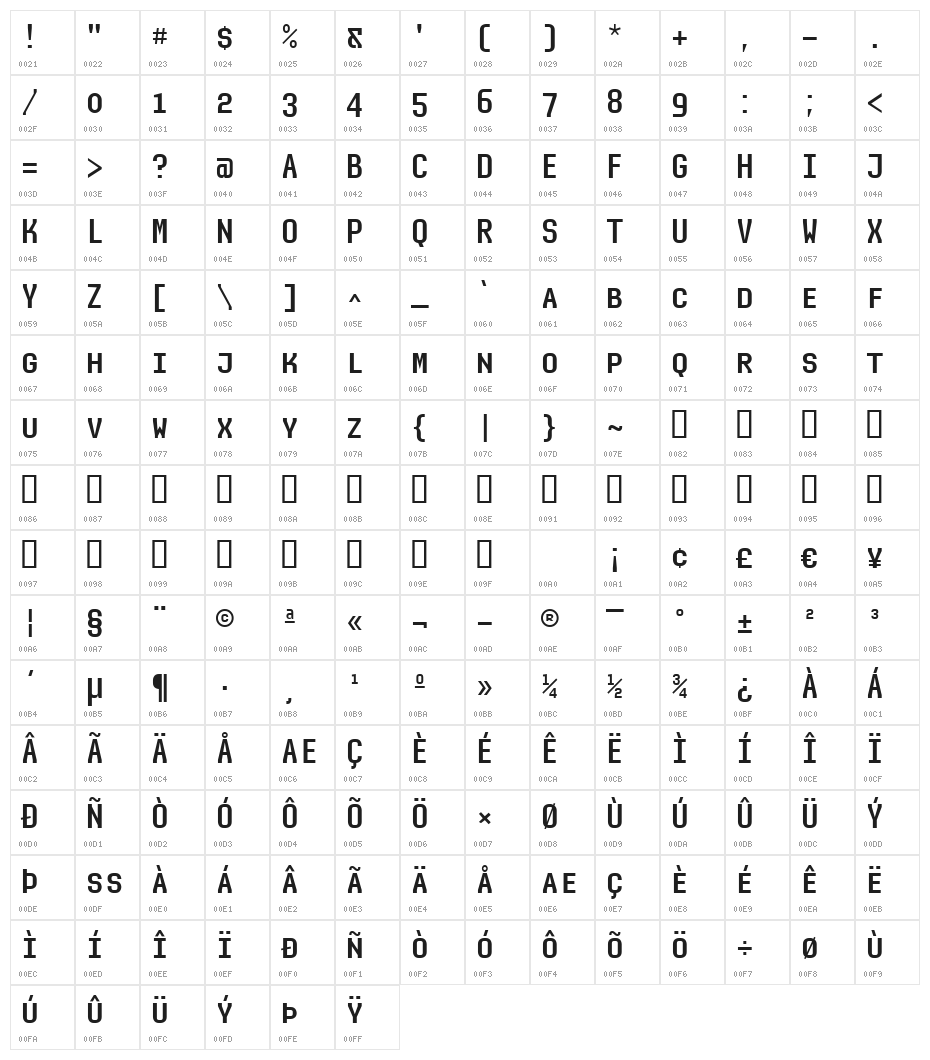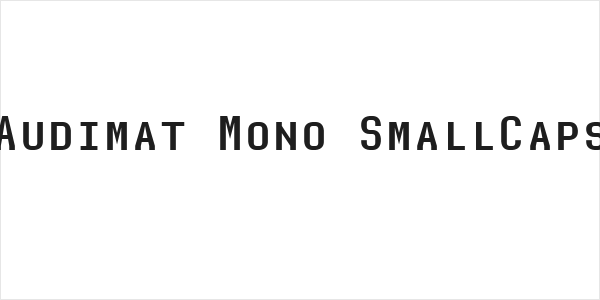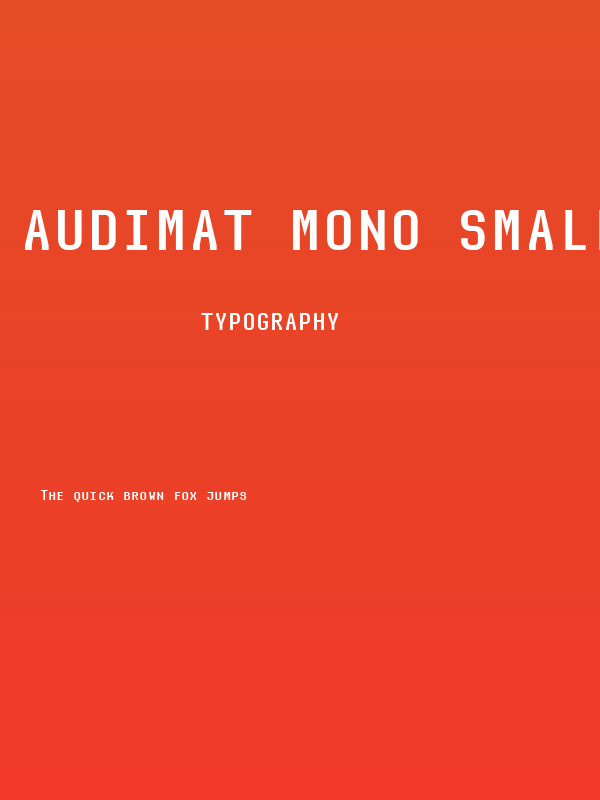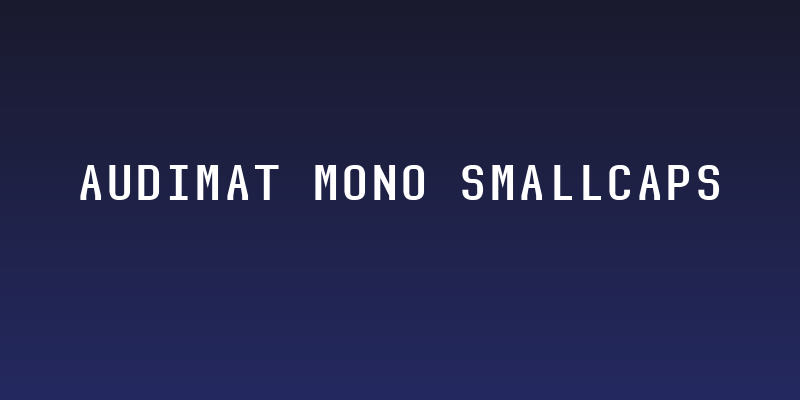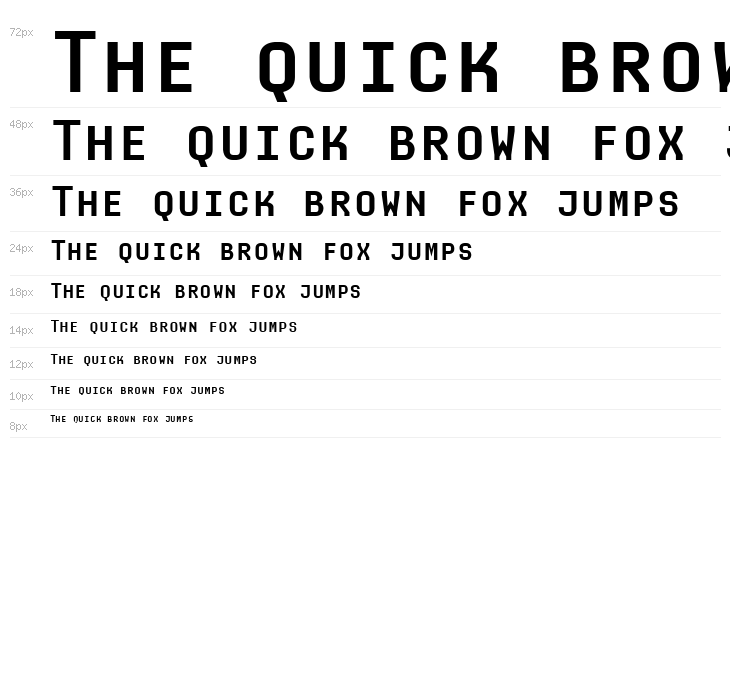
Audimat Mono SmallCaps Font
Audimat Mono SmallCaps Description
This font presents a bold, monospaced style with a modern and geometric aesthetic. Each character is uniformly spaced, contributing to a clean and organized appearance. The uppercase letters are prominent and assertive, while the lowercase letters maintain a consistent height, enhancing readability. The numerals are straightforward, matching the overall geometric theme. Special characters are well-defined, adding versatility to the font's application. The design is minimalistic yet impactful, making it suitable for various digital and print media.
| Use Case | Headlines, Coding, Technical documentation |
| Proposed Projects | Ideal for coding environments, technical documentation, digital interfaces, and modern branding projects. |